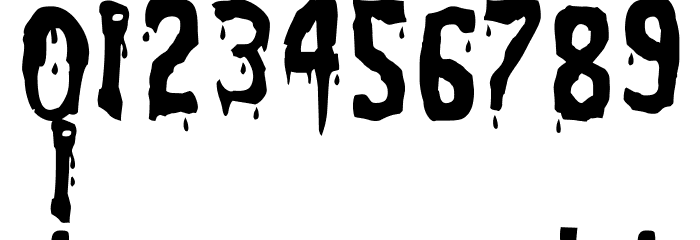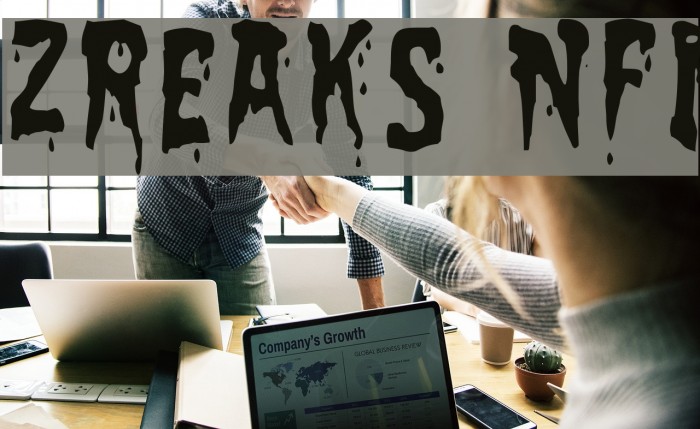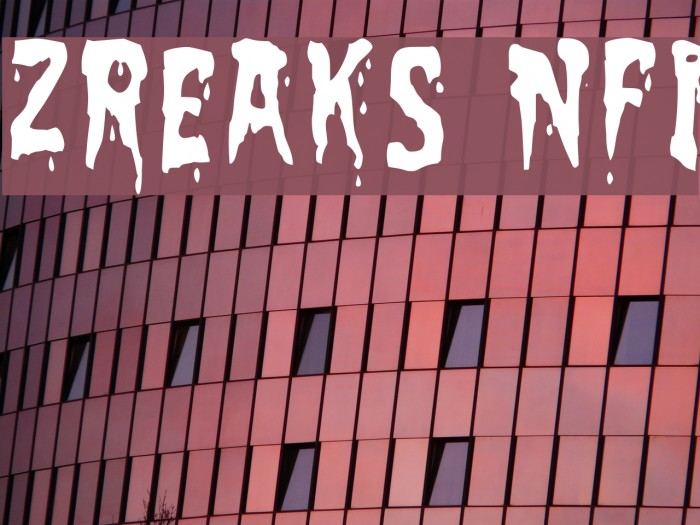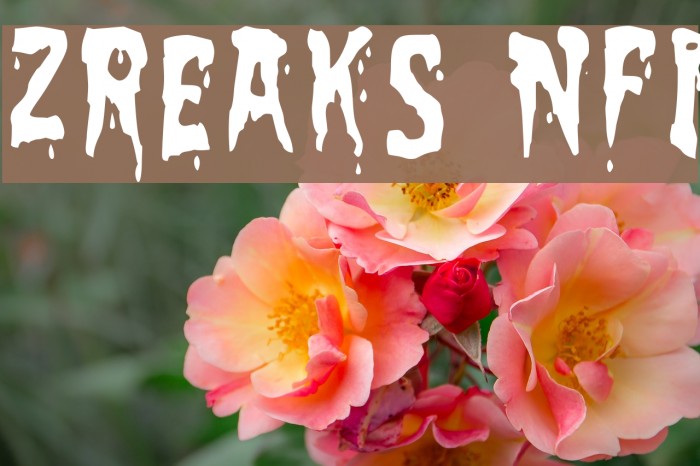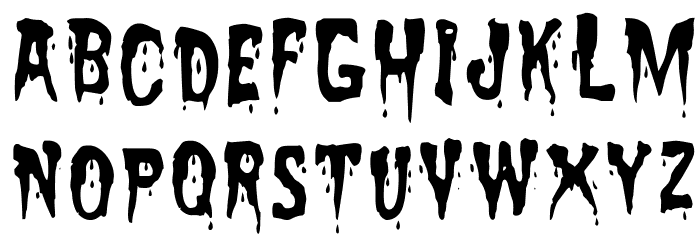
Zreaks NFI Font
This font features a unique and eerie design, characterized by its dripping effect that mimics the appearance of wet paint or melting wax. The letters are bold and irregular, with uneven edges that enhance its spooky and unsettling aesthetic. This style is perfect for creating a sense of horror or mystery, making it ideal for Halloween-themed projects or any design that requires a dramatic and eye-catching typeface. The font maintains a consistent thickness throughout, with each character appearing as if it's slowly melting, adding to its distinctive and memorable look.
A bold, dripping font perfect for horror and Halloween themes.
• Proposed Projects: Ideal for Halloween invitations, horror movie posters, haunted house flyers, and spooky-themed merchandise.
• Category: Decorative/Display
• Bold: Yes
• Italic: No
• Weight: Bold
• Width: Normal
• Character Spacing: Normal
• Contrast: Low
• Overall Style: Decorative
• Use Case: Headlines, Logos